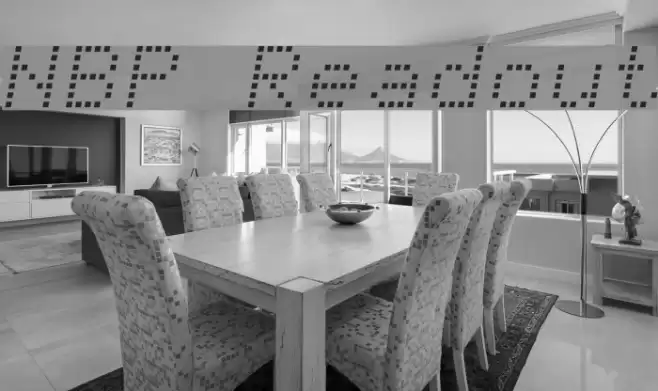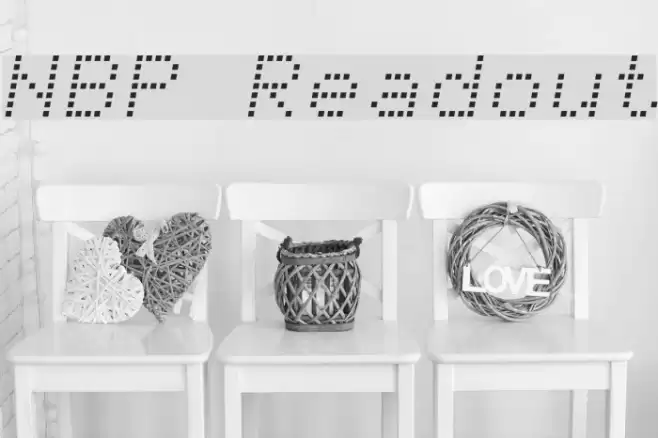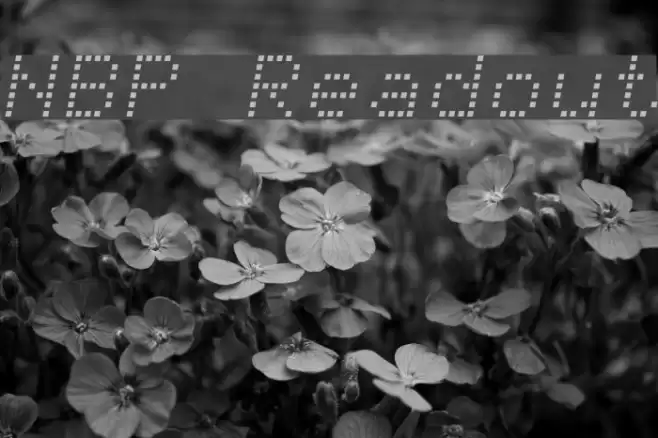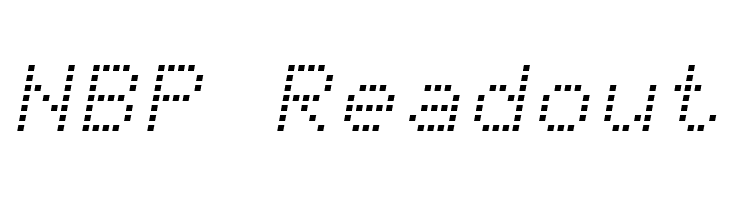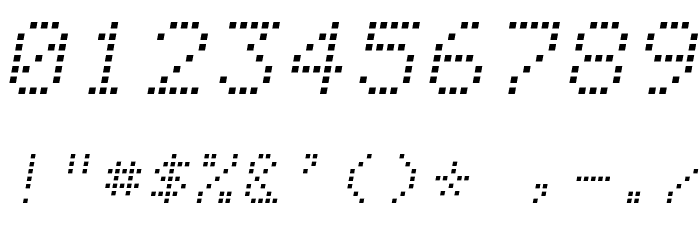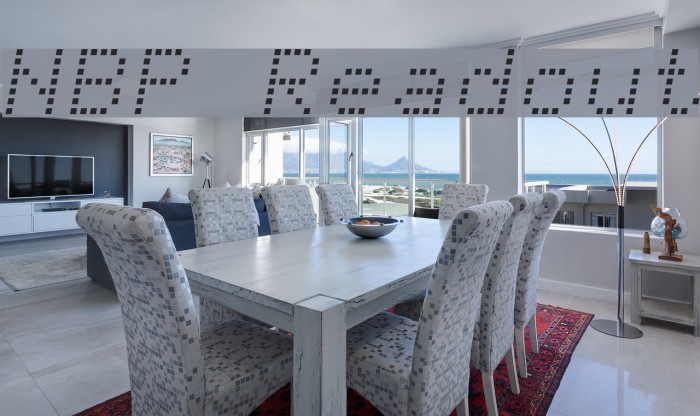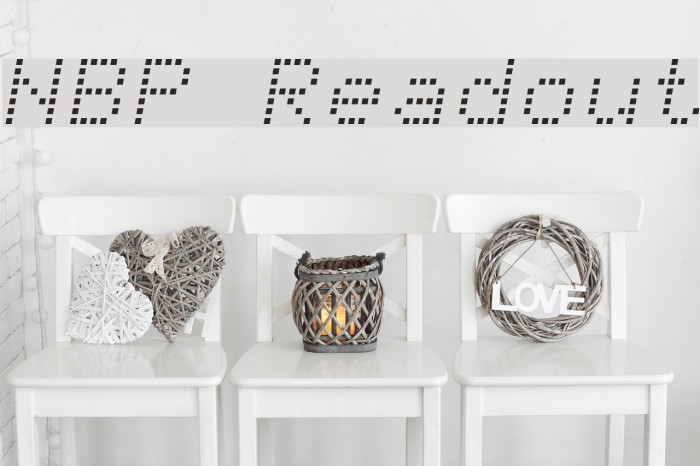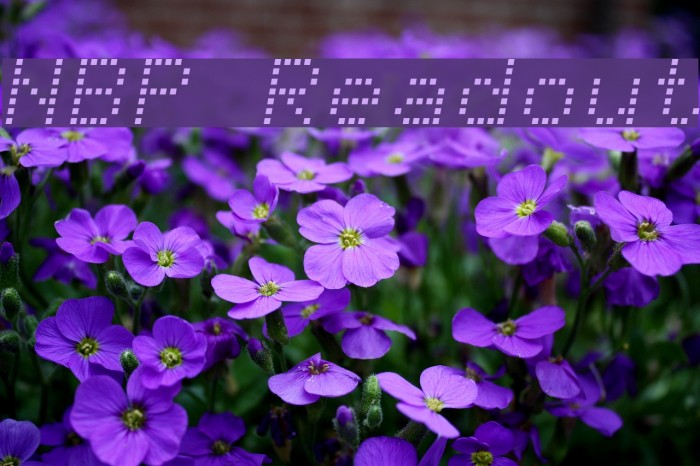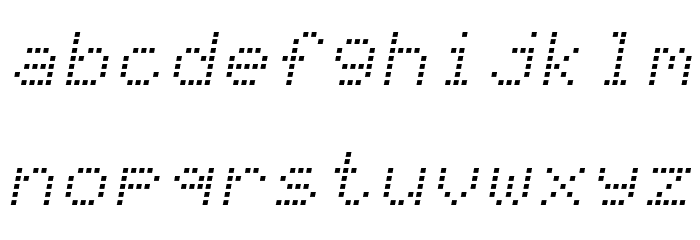
NBP Readout Font
NBP Readout Description
This font is a unique and modern take on digital aesthetics, characterized by its dot matrix design. Each character is composed of a series of small, evenly spaced dots, creating a pixelated effect reminiscent of early digital displays. The uppercase and lowercase letters maintain a consistent height, contributing to a uniform appearance. The numbers and special characters follow the same dot pattern, ensuring cohesion across all elements. This style evokes a sense of nostalgia for retro technology while maintaining a clean and contemporary look.
A modern dot matrix font with a pixelated, digital aesthetic from Uncategorized fonts.
- Proposed Projects: Ideal for digital displays, retro-themed designs, tech branding, and futuristic projects.
- Use Case: Logos, Digital displays, Tech branding